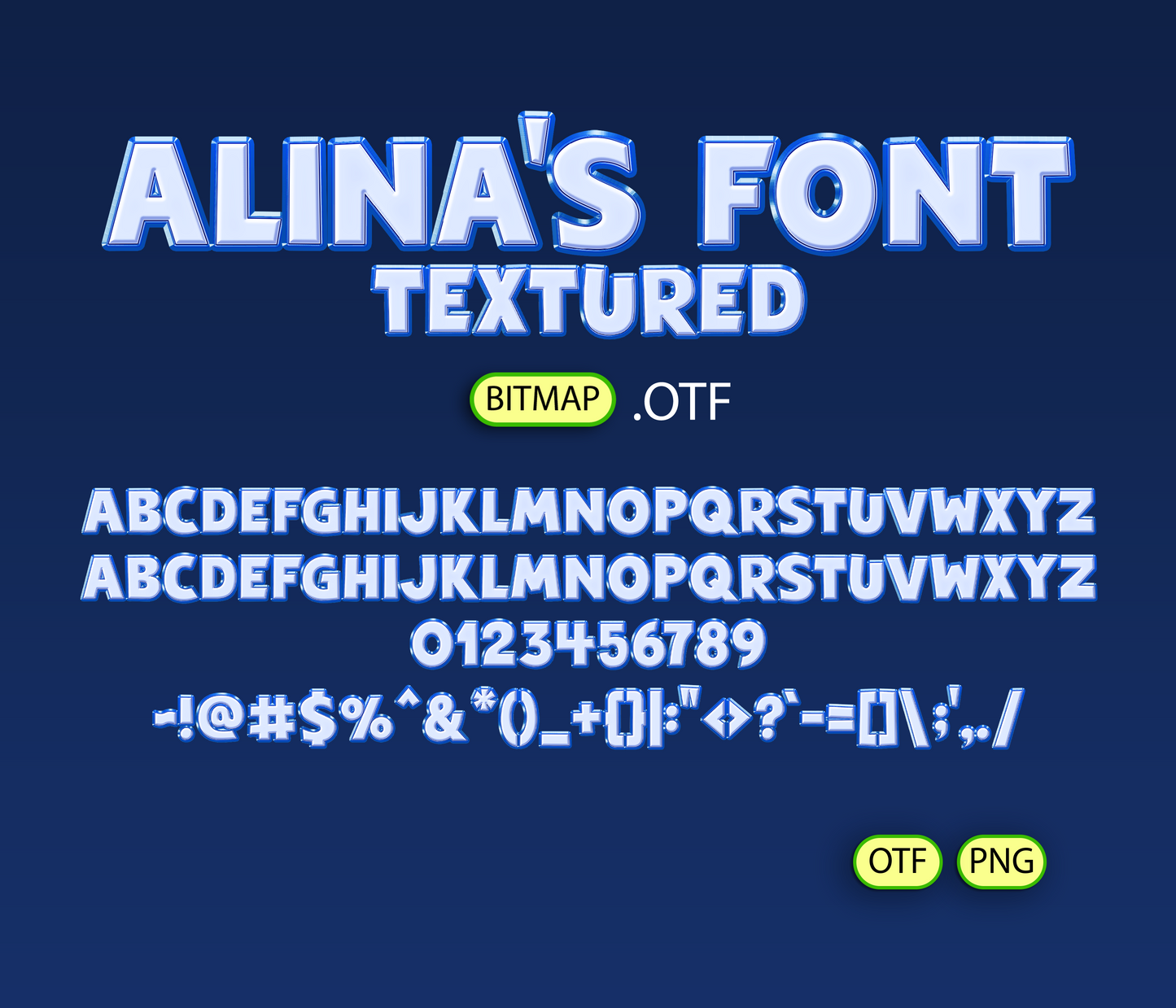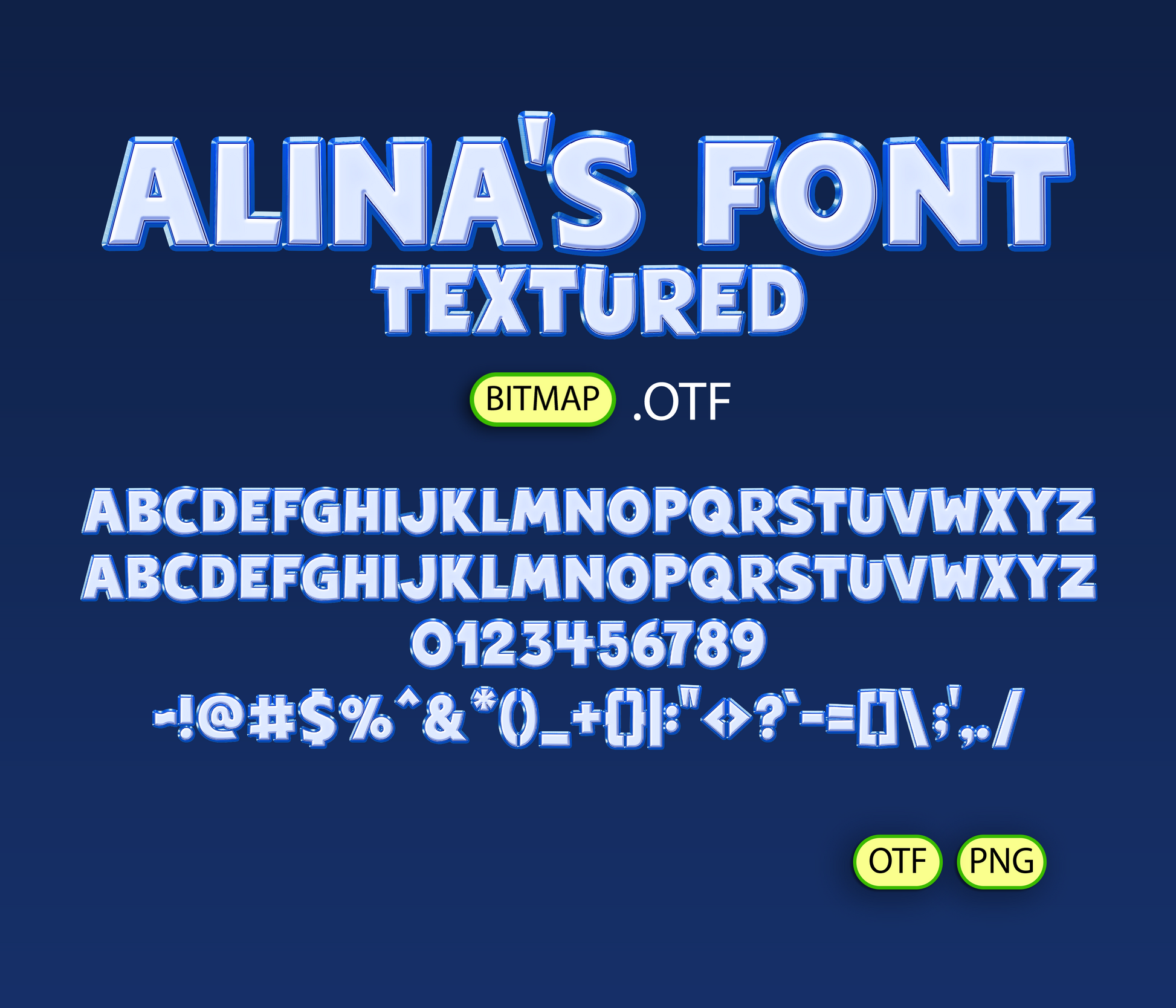
Tiny Blue Village Font Textured
Step into the whimsical world of tiny blue villagers, a beloved classic that brings magical forest life to your designs with unique charm and playful spirit. Our Tiny Blue Village-inspired font captures the essence of this iconic cartoon, characterized by its enchanted themes and cheerful, rounded aesthetic. Each character reflects the quirky, fun-loving nature of the little blue community and their mushroom homes, making it perfect for projects that aim to evoke the nostalgia and timeless appeal of this animated series.
Envision a typeface that perfectly encapsulates the cartoon's magical forest setting and its joyful style. Our Tiny Blue Village font is designed to mirror the show's distinctive look, with a focus on rounded, playful letterforms that are reminiscent of the small blue characters and their whimsical world. It includes an extensive character set, featuring alphabets, numbers, and special symbols, offering a comprehensive solution for various design projects, from themed party invitations to cheerful merchandise.
- Textured and Non-Textured Variants: Each font is available in both a playful, magical forest-inspired style and a clean, non-textured version for diverse design needs.
- Comprehensive Character Set: Offers a wide range of characters for complete design versatility.
The Tiny Blue Village font is more than just a typeface; it's an homage to the classic cartoon that has delighted generations.